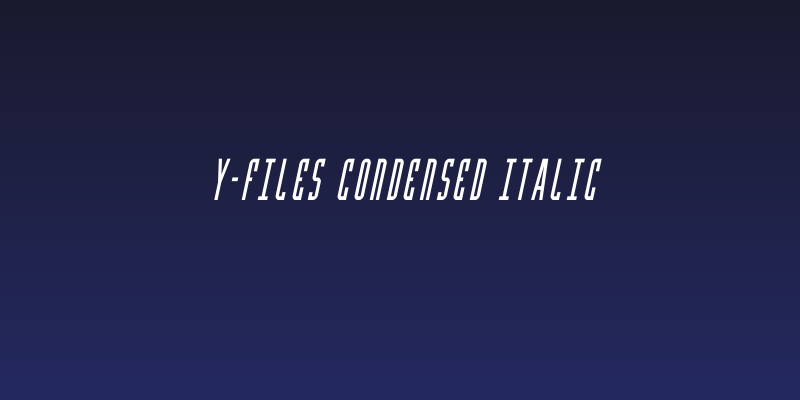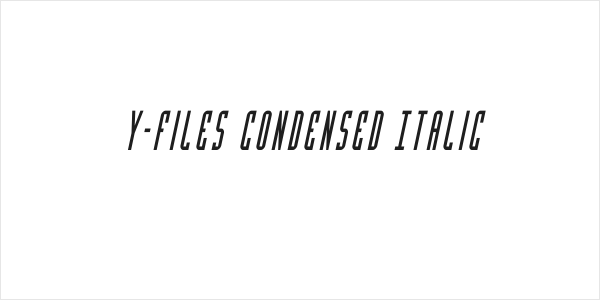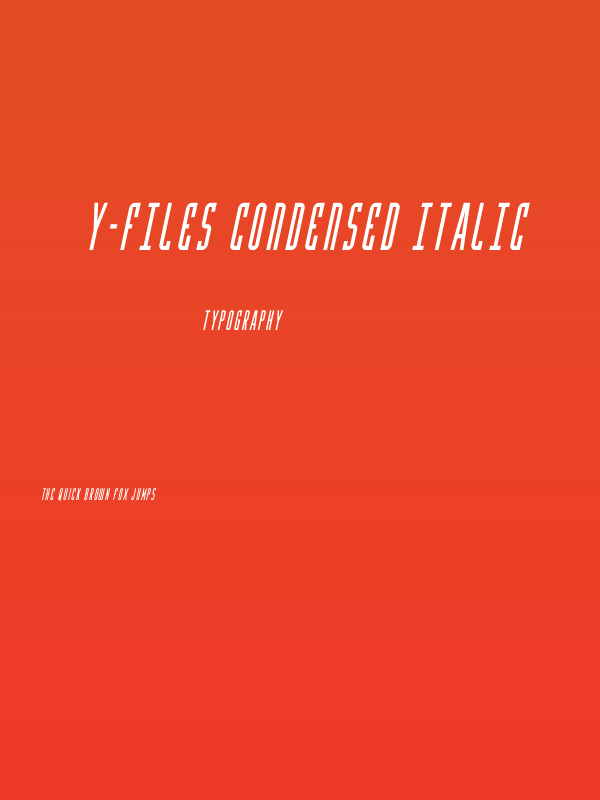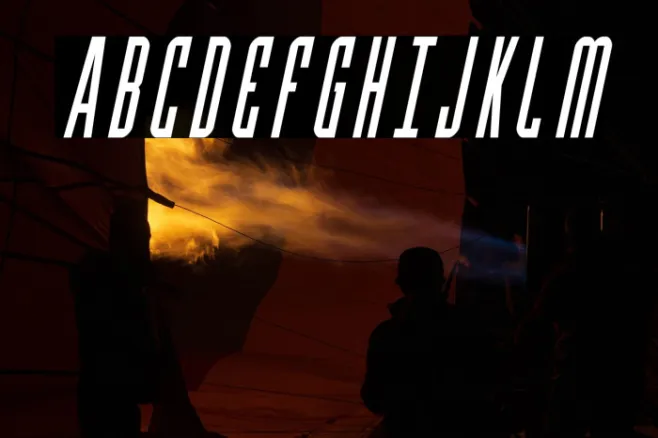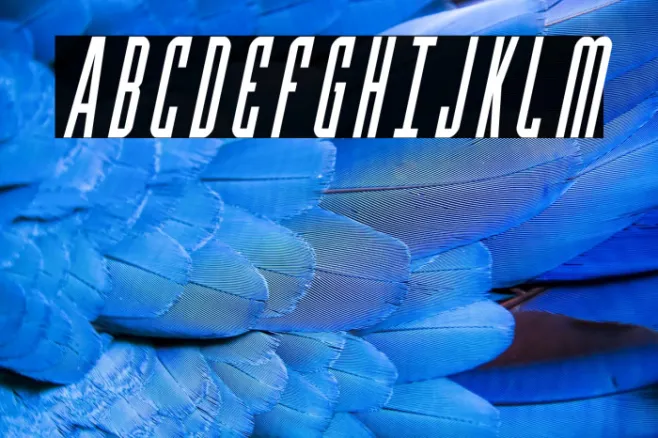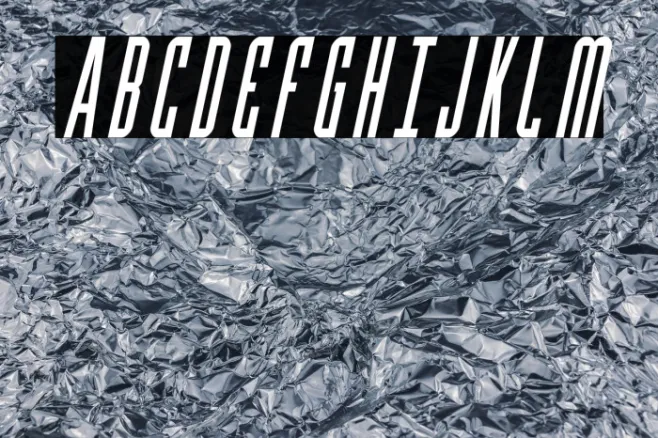
Y-Files Condensed Italic Font
Y-Files Condensed Italic Description
This font features a modern, condensed style with a distinct italic slant, giving it a dynamic and forward-moving appearance. The characters are tall and narrow, emphasizing verticality and creating a sleek, streamlined look. The strokes are consistent in thickness, offering a uniform appearance across all characters. The uppercase and lowercase letters maintain a cohesive design, with sharp angles and clean lines. The numerals are similarly styled, ensuring readability and aesthetic harmony. Special characters are included, matching the overall style and enhancing the font's versatility.